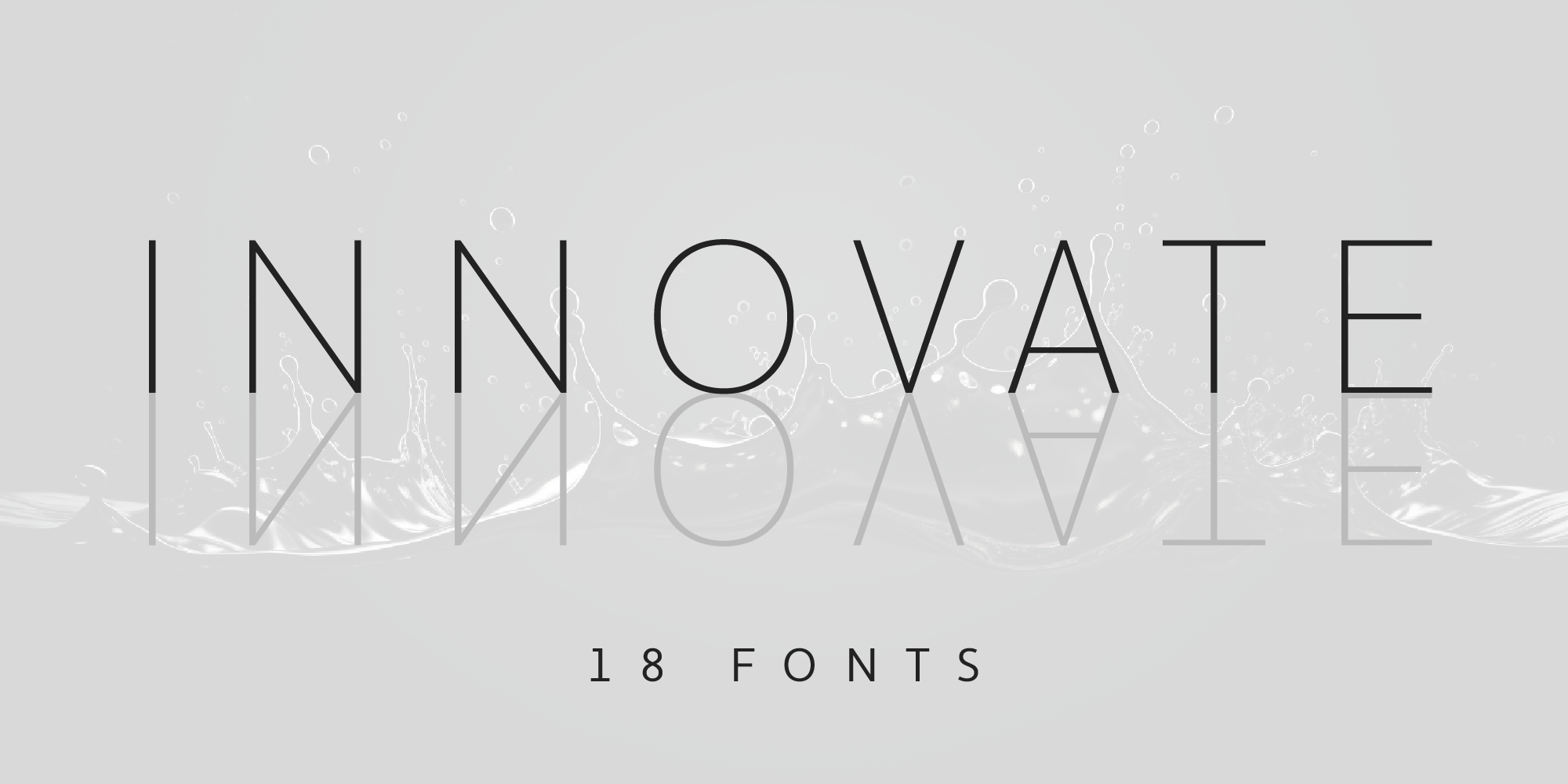
Innovate Font Free Download is a modern, clean, and versatile sans-serif typeface designed to bring innovation and clarity to your designs. Perfect for branding, logos, websites, digital projects, editorial design, and corporate materials, Innovate Font combines simplicity with style, making it ideal for projects that require a sleek, contemporary look. Its balanced letterforms offer great readability and a professional, forward-thinking aesthetic.
With Innovate Font Free Download, you’ll receive a complete set of uppercase letters, lowercase, numbers, and essential punctuation, offering flexibility for both print and digital applications. Whether you're designing a cutting-edge website, crafting a corporate identity, or developing modern marketing materials, this font ensures readability while maintaining a polished and stylish look.
Bring a fresh, modern edge to your designs with Innovate Font Free Download. Its clean and professional style makes it the perfect choice for projects that need a contemporary, forward-thinking touch.